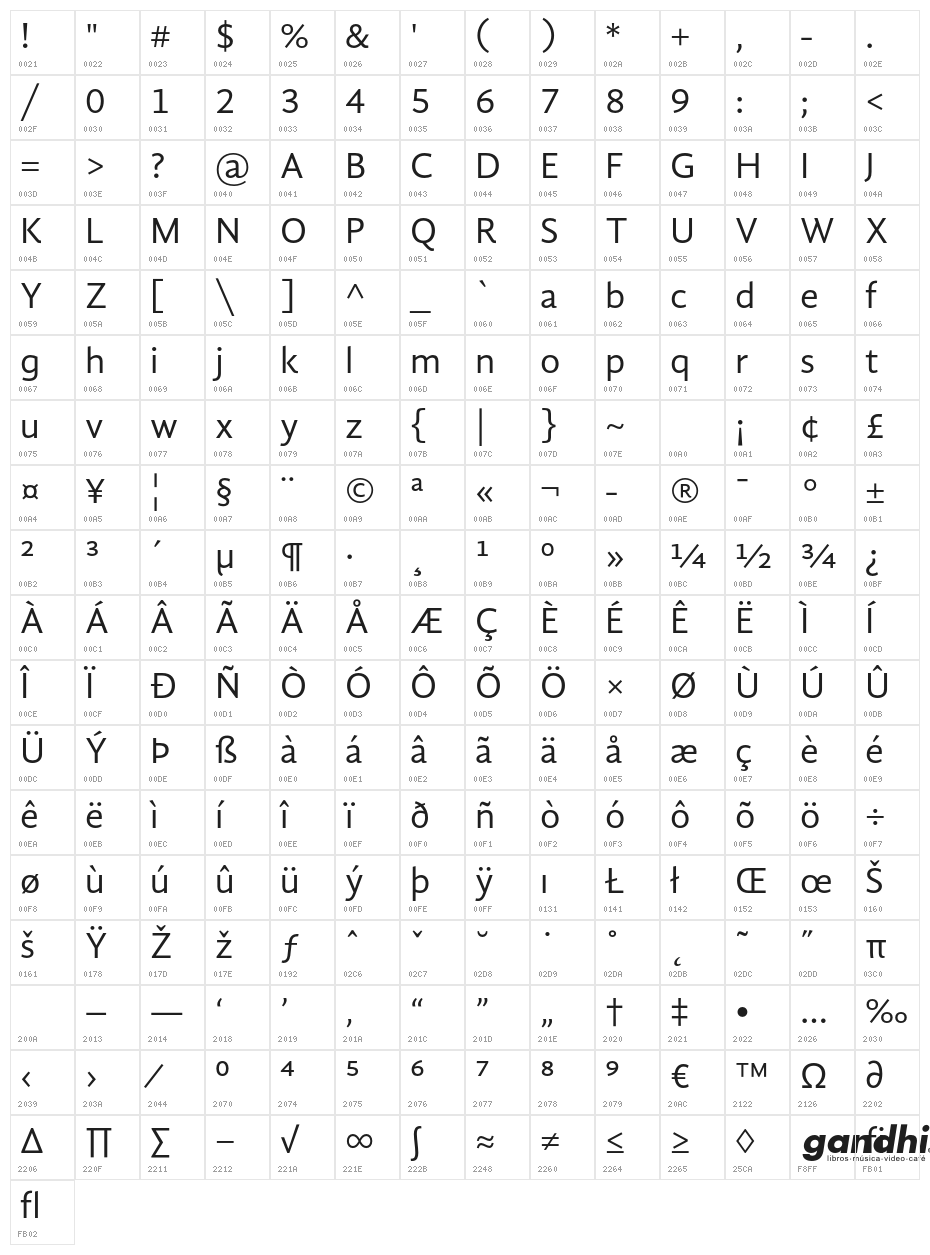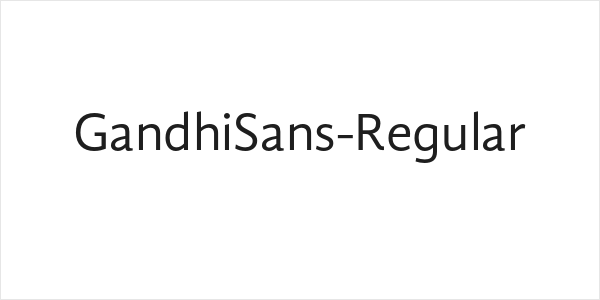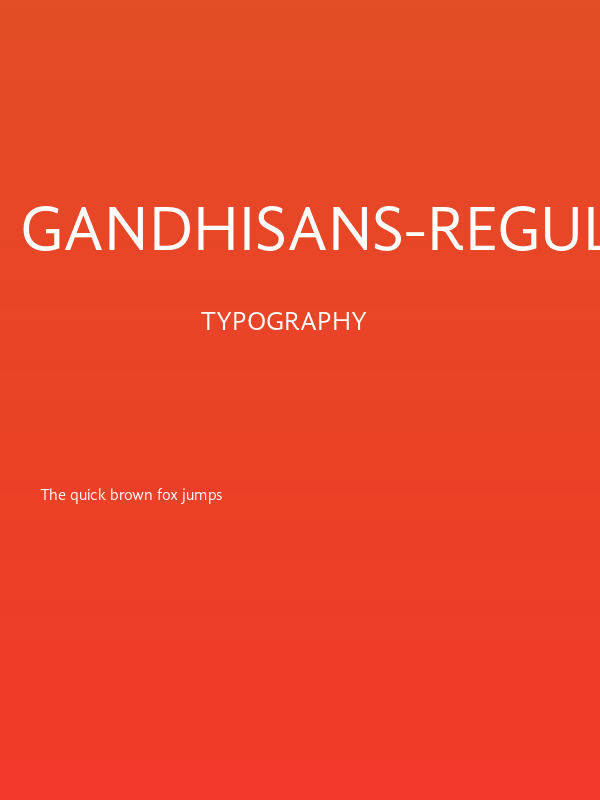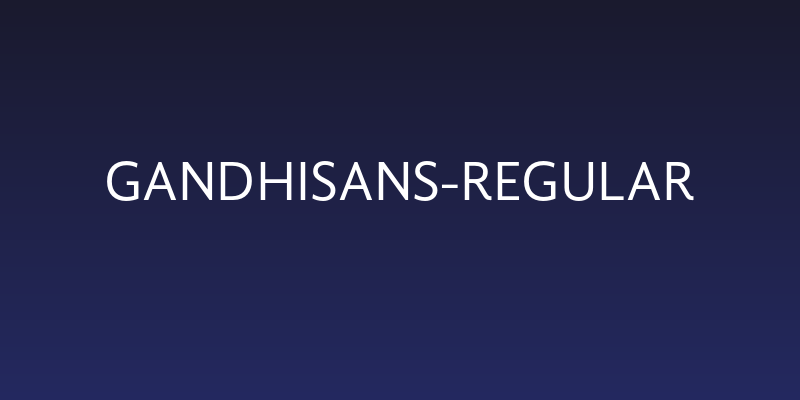
GandhiSans-Regular Font
GandhiSans-Regular Description
This font presents a clean and modern sans-serif style, characterized by its simplicity and readability. The letters are evenly spaced with a consistent stroke width, providing a balanced and harmonious appearance. The uppercase and lowercase letters are well-proportioned, and the numerals are clear and distinct. The special characters are designed to complement the overall aesthetic, making it versatile for various applications. Its straightforward design ensures legibility, making it suitable for both digital and print media.